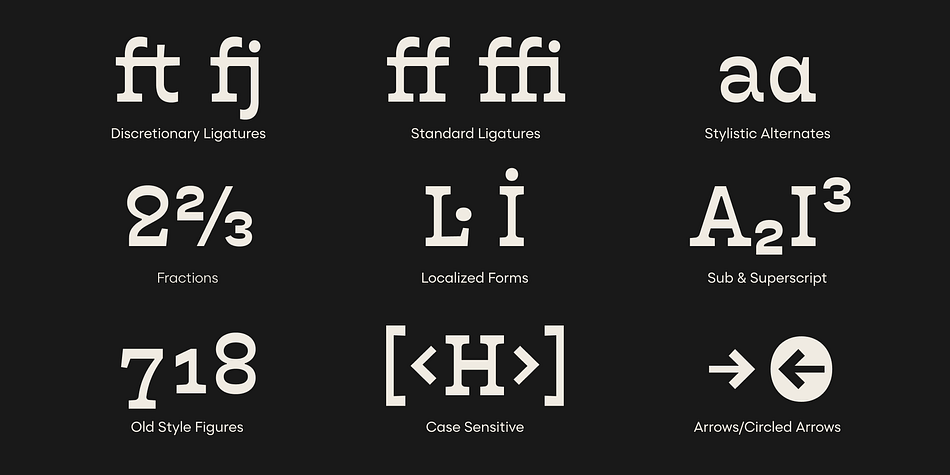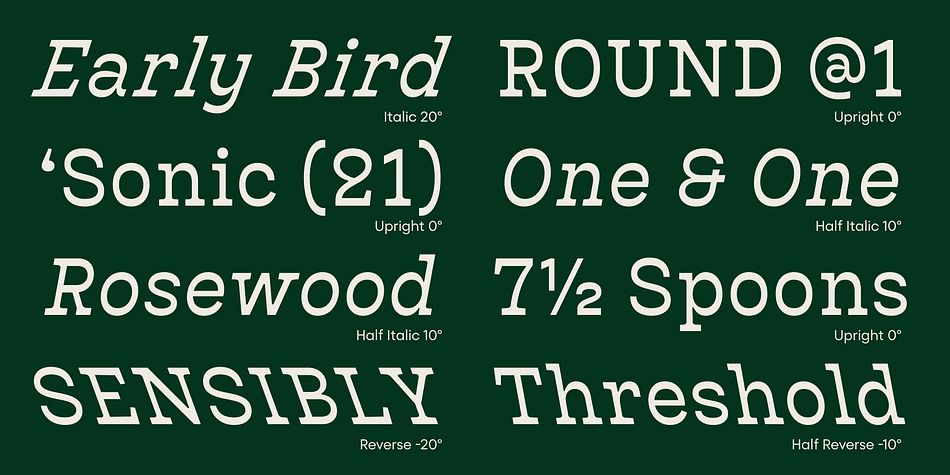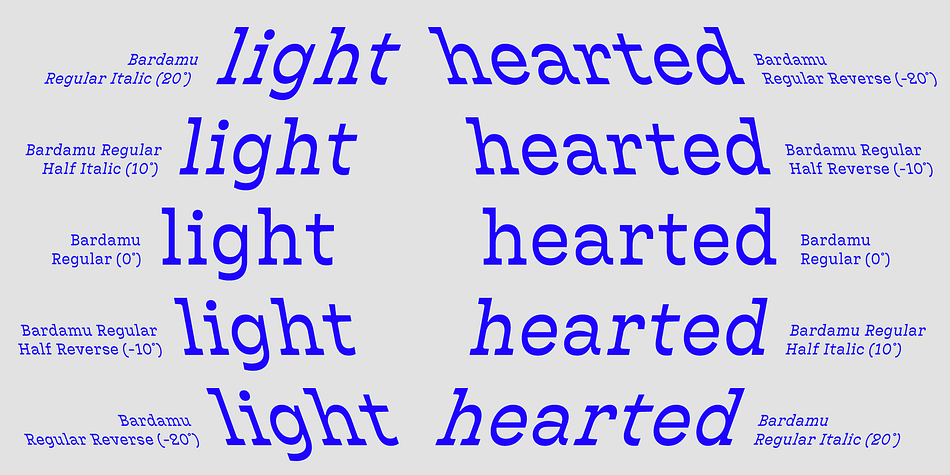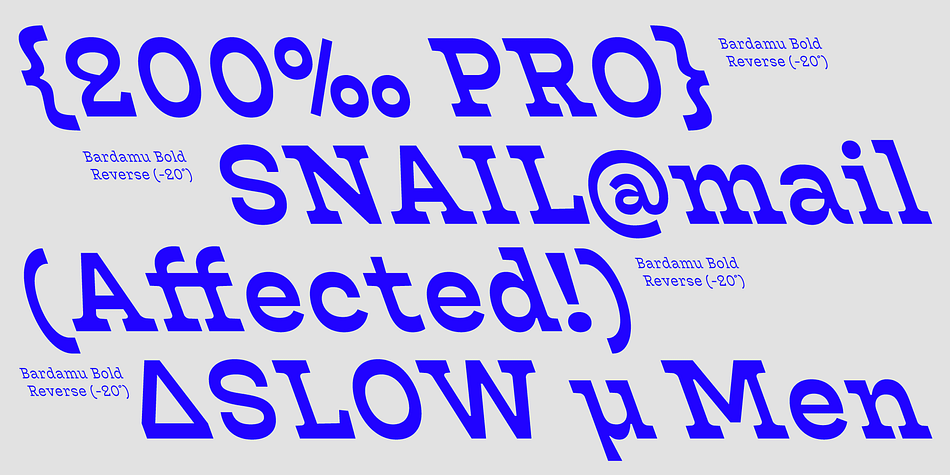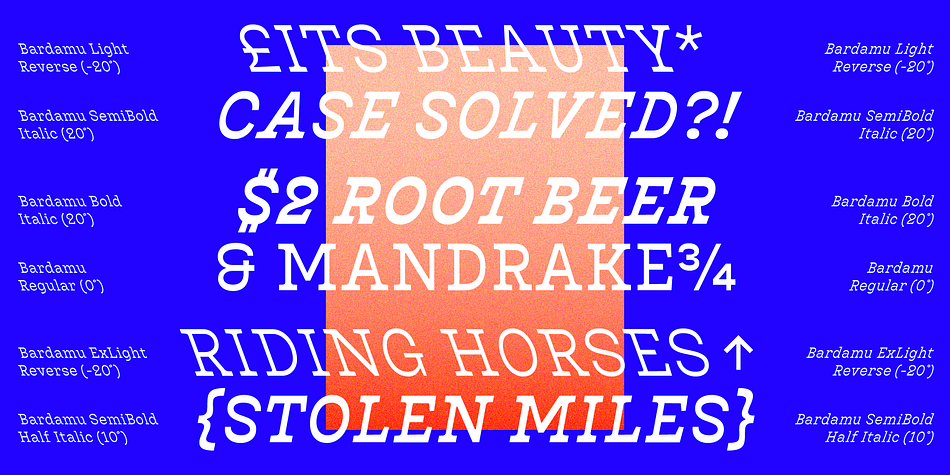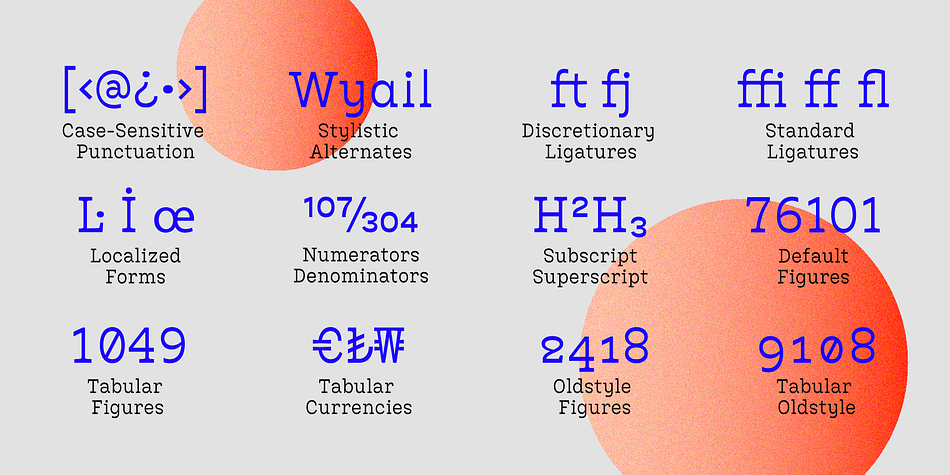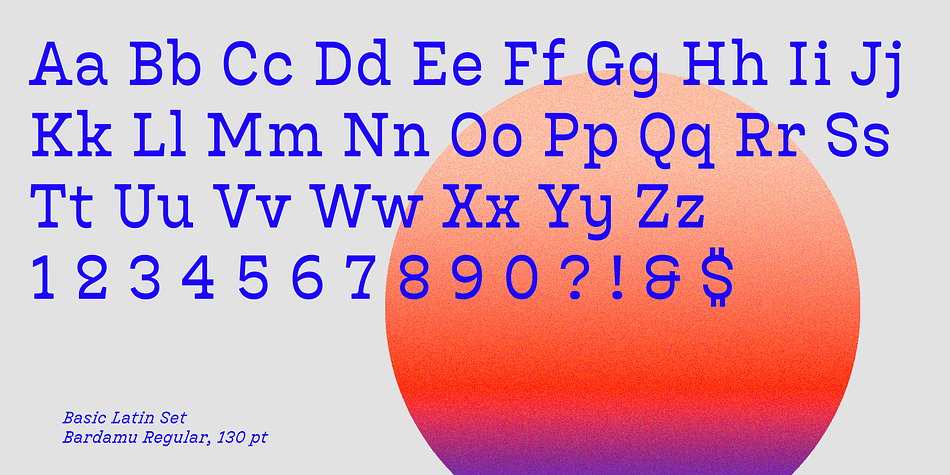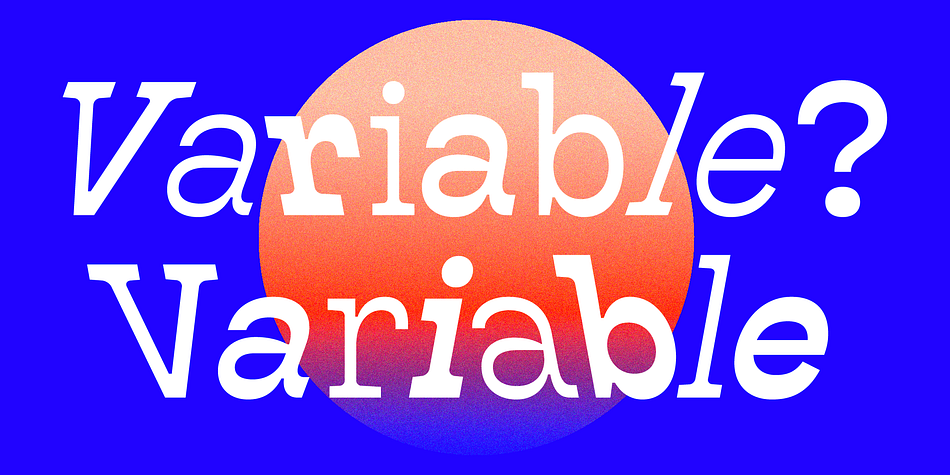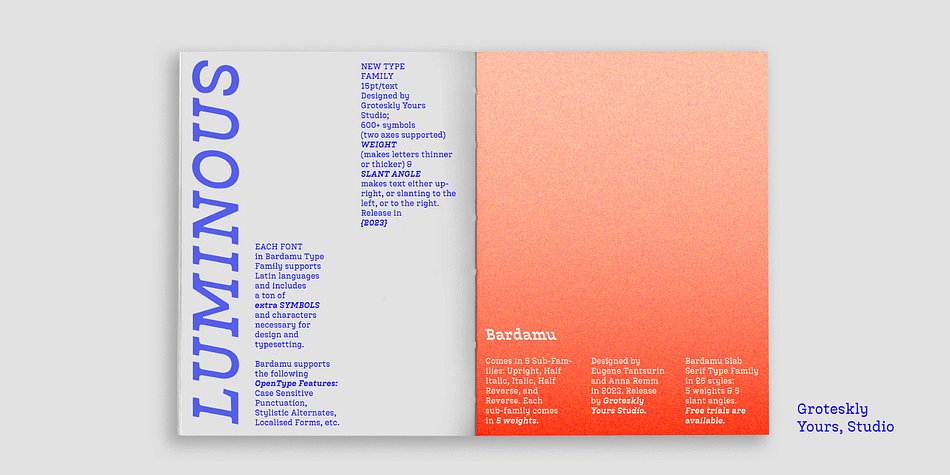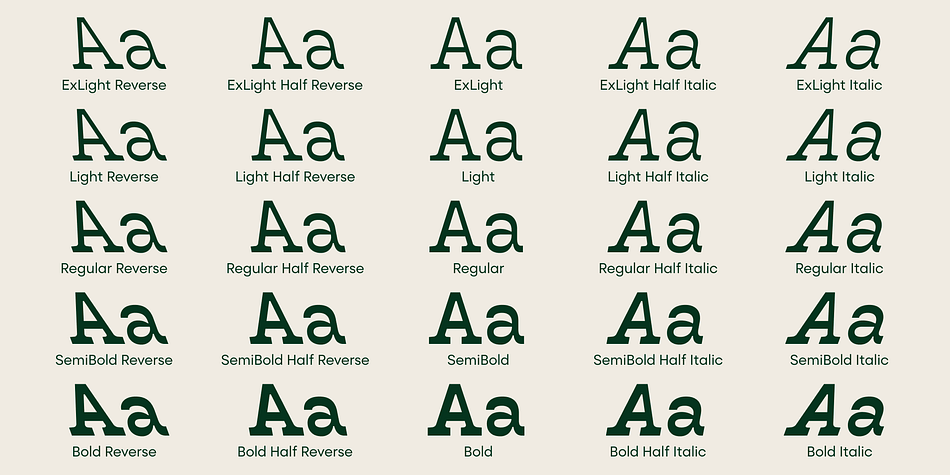
Bardamu
Designed by Evgeny Tantsurin, Bardamu is a slab serif font family. This typeface has twenty-six styles and was published by Groteskly Yours.
Bardamu is a variable slab serif font family designed by Eugene Tantsurin and Anna Remm, and released by Groteskly Yours Studio. Bardamu is a type family that is open to interpretation and experimentation, yet this ambiguity does little to hide its inherent friendliness and good vides. Bardamu can easily be used in a variety of projects and feel at home both in graphic design, branding, web design or editorial design. Thanks to its unique letterforms and eye-catching design choices, it can be that final touch that makes your brand pop!
One of the standout qualities of Bardamu is its remarkable versatility. Bardamu comes in 25 styles, allowing users to choose a style that best fits their needs. In addition to that, it offers a wide range of styles, from sleek backward-slanted italics at -20° to elegant upright styles, as well as regular 20° italics. For static fonts, there are two extra subfamilies available (10° Half Italic and 10° Half Reverse) that can be used for creating more complex hierarchy in any text. With a total of 25 static styles and 1 Variable font, Bardamu is a perfect workhorse display slab serif with unlimited typesetting capabilities. Each font in the Bardamu family boasts an extensive 700+ character set, encompassing all major Latin-based languages, punctuation marks, symbols, and even supplementary characters.
Bardamu takes flexibility to a whole new level with its incredible OpenType features that further enhance its versatility. With features such as Case-Sensitive Punctuation, Stylistic Alternates, Sub- and Superscript, Tabular Figures, and Localised Forms, you can fine-tune every detail of your design to perfection. Moreover, the multiple stylistic sets available in Bardamu allow you to switch between various versions of the same glyph effortlessly.
Designer Evgeny Tantsurin